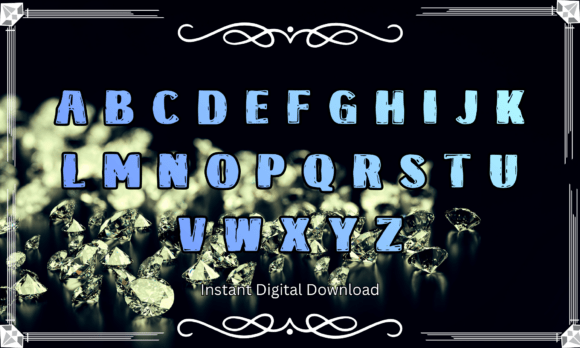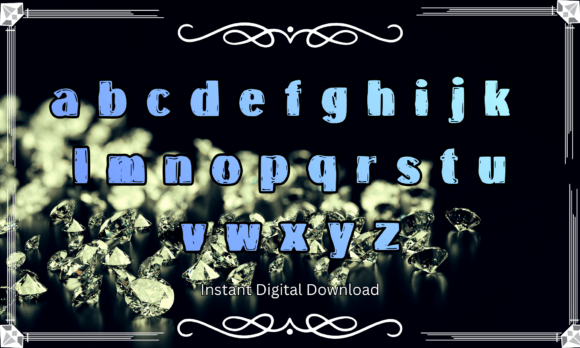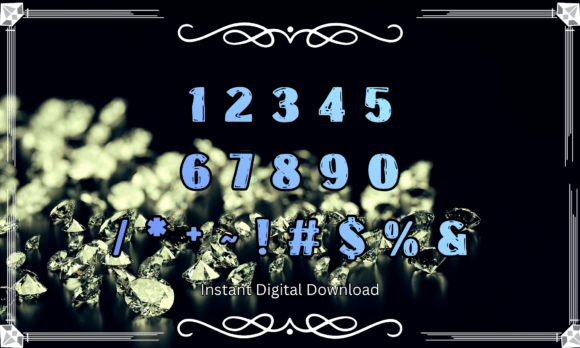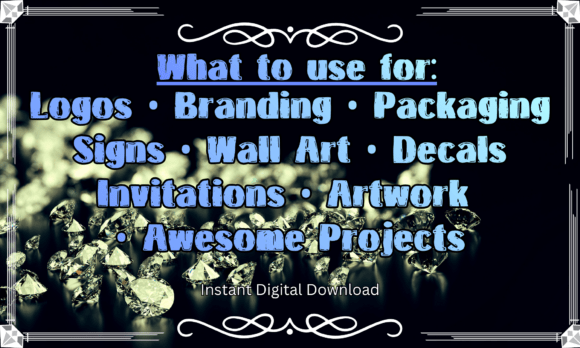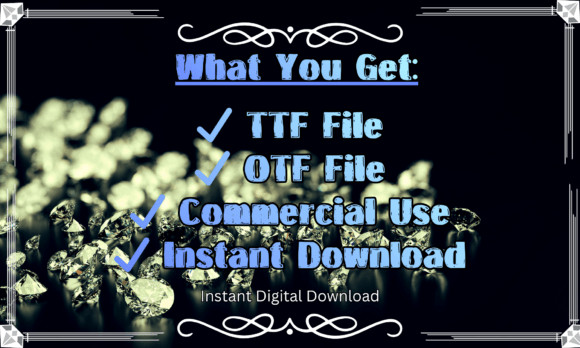
Diamond Luxury Font: Elevate Your Designs with Elegance and Shine 💎
Are you looking for a font that exudes luxury, sophistication, and glamour? Look no further than the Diamond Luxury Font! This stunning display font is inspired by the brilliance of scattered diamonds and high-end aesthetics, making it perfect for creators who want to add a touch of elegance and shine to their designs.
What Makes Diamond Luxury Font Special?
Diamond Luxury Font is a bold yet refined font that boasts smooth, slightly distressed edges and a soft luxury feel. This unique combination of modern charm and artistic texture makes it stand out from other fonts in the market. The font’s design is carefully crafted to give your designs an effortless luxury vibe, perfect for modern brands, trendy shops, and stylish visuals.
Perfect Use Cases for Diamond Luxury Font
Diamond Luxury Font is versatile and can be used in various design projects, including:
- Logos & Branding: Create a lasting impression with a luxurious logo that speaks to your brand’s high-end values.
- Packaging Design: Elevate your product packaging with a sophisticated and eye-catching design.
- Wall Art & Prints: Add a touch of glamour to your wall art and prints with this stunning font.
- Invitations & Events: Make your invitations and event materials stand out with a luxurious and stylish font.
- Stickers & Decals: Create stylish and trendy stickers and decals that will make your designs pop.
- Digital Artwork: Use Diamond Luxury Font to add a touch of sophistication to your digital artwork.
- Creative / Stylish Projects: Perfect for any creative project that requires a bold, yet refined font.
- Uppercase & Lowercase Letters: Complete set of uppercase and lowercase letters for versatile use.
- Numbers & Symbols: Includes numbers and symbols to complete your designs.
Font Style and Characteristics
Diamond Luxury Font boasts the following characteristics:
- Luxury & Glam: Inspired by high-end aesthetics and the brilliance of diamonds.
- Modern Display: A bold and refined font perfect for display purposes.
- Soft Distressed Texture: Smooth, slightly distressed edges for a unique and artistic look.
- Bold & Readable: Easy to read and understand, even at large sizes.
- Stylish & Creative: Adds a touch of elegance and sophistication to your designs.
Why You’ll Love Diamond Luxury Font
Diamond Luxury Font is designed to evoke feelings of:
- Chic: Perfect for modern brands and trendy shops.
- Bold: Makes a statement with its bold and refined design.
- High-end: Gives your designs an effortless luxury vibe.